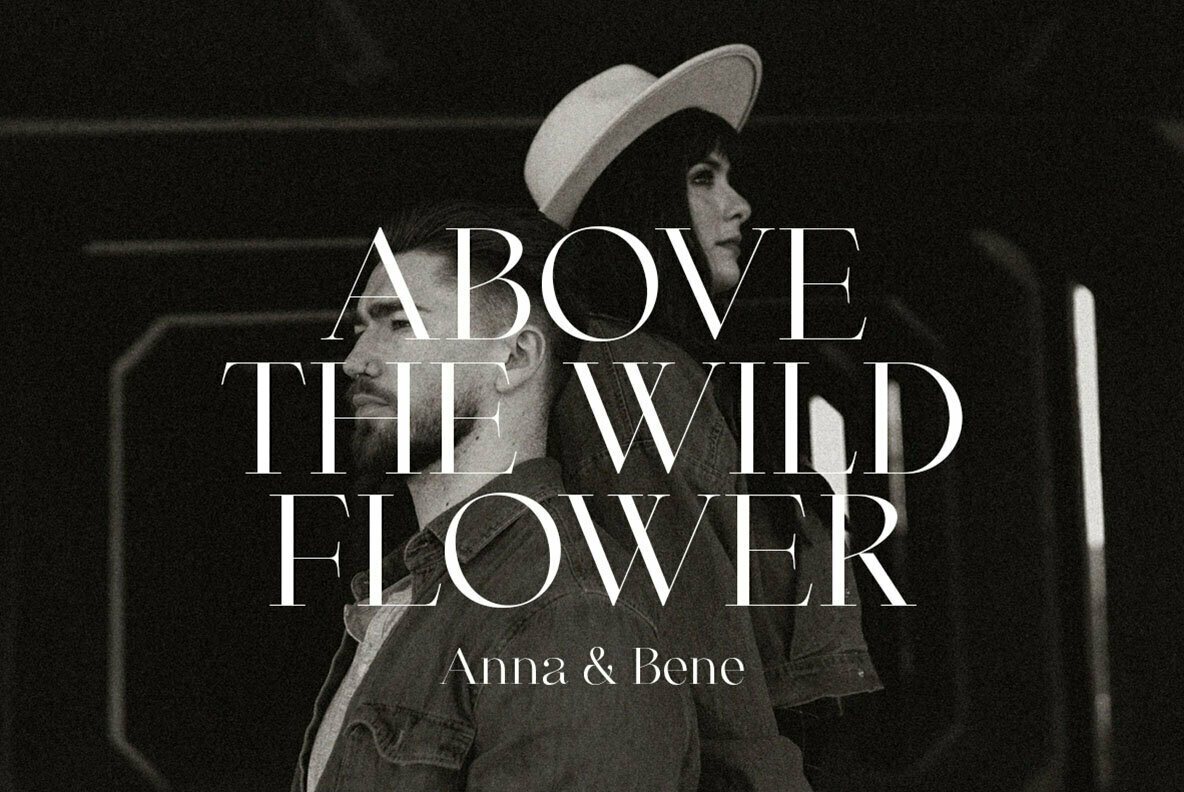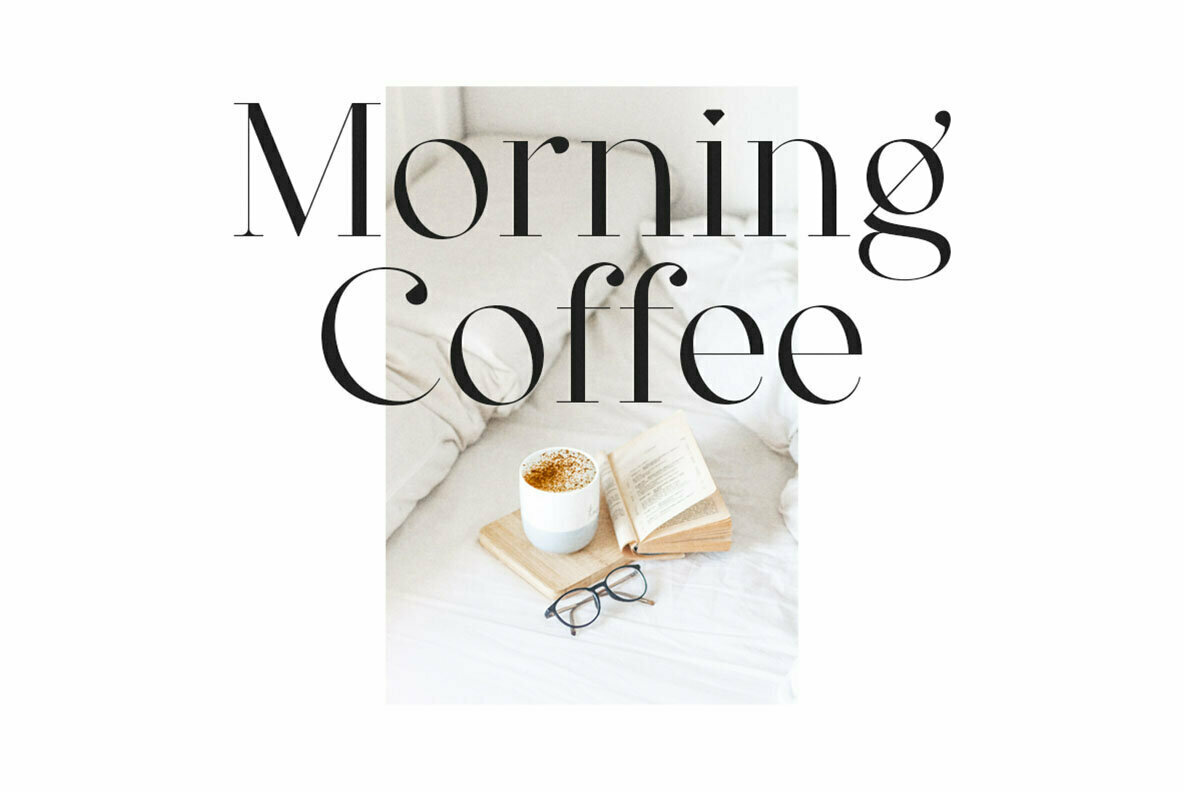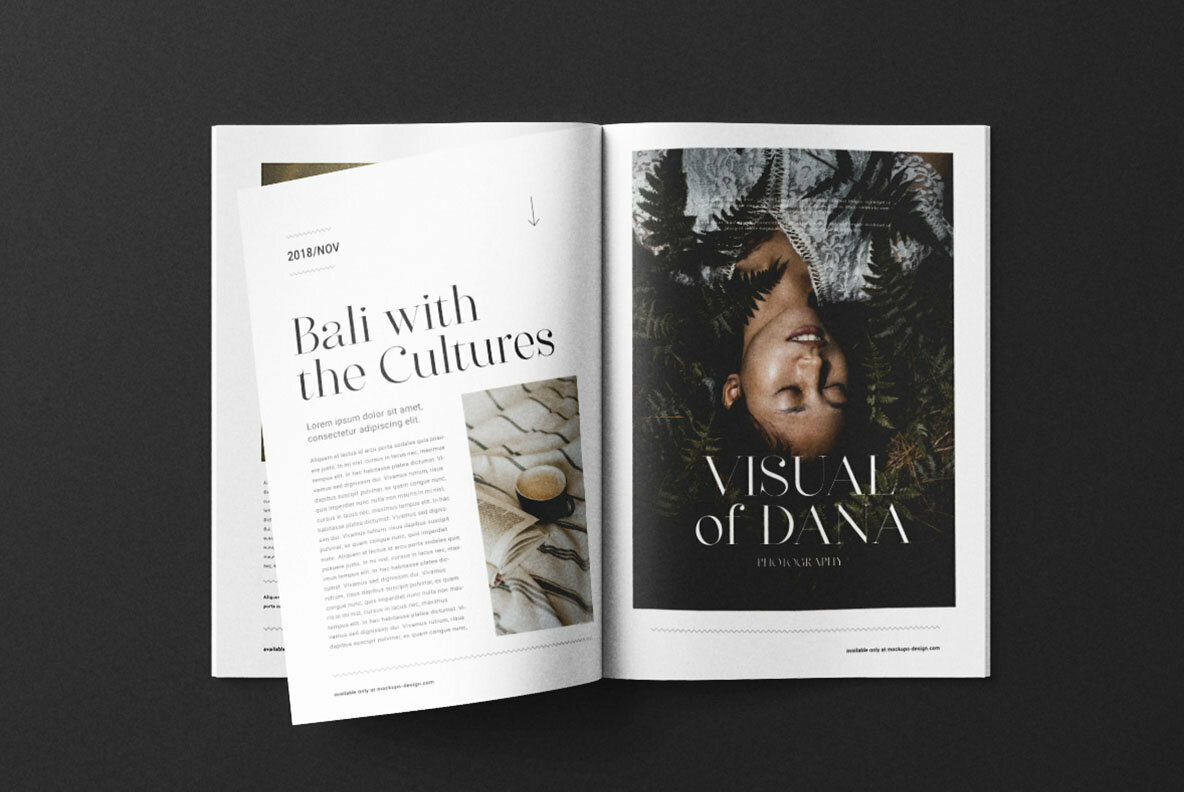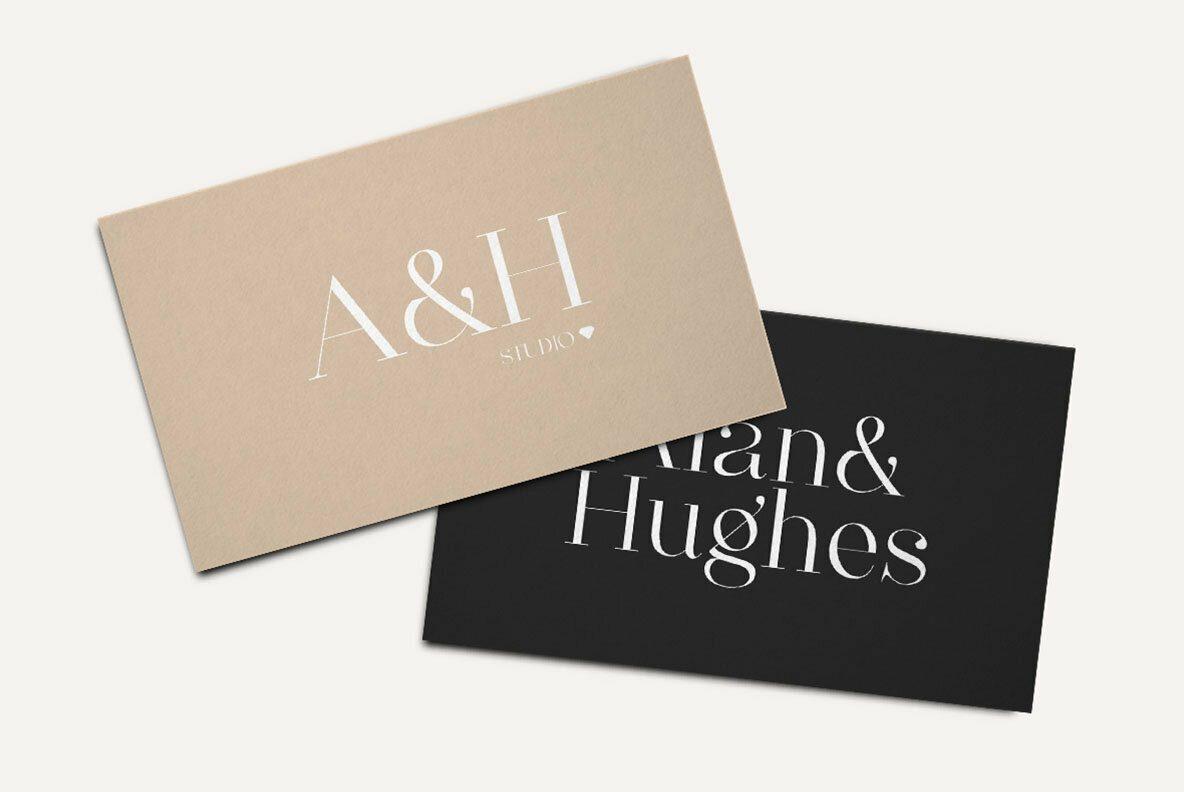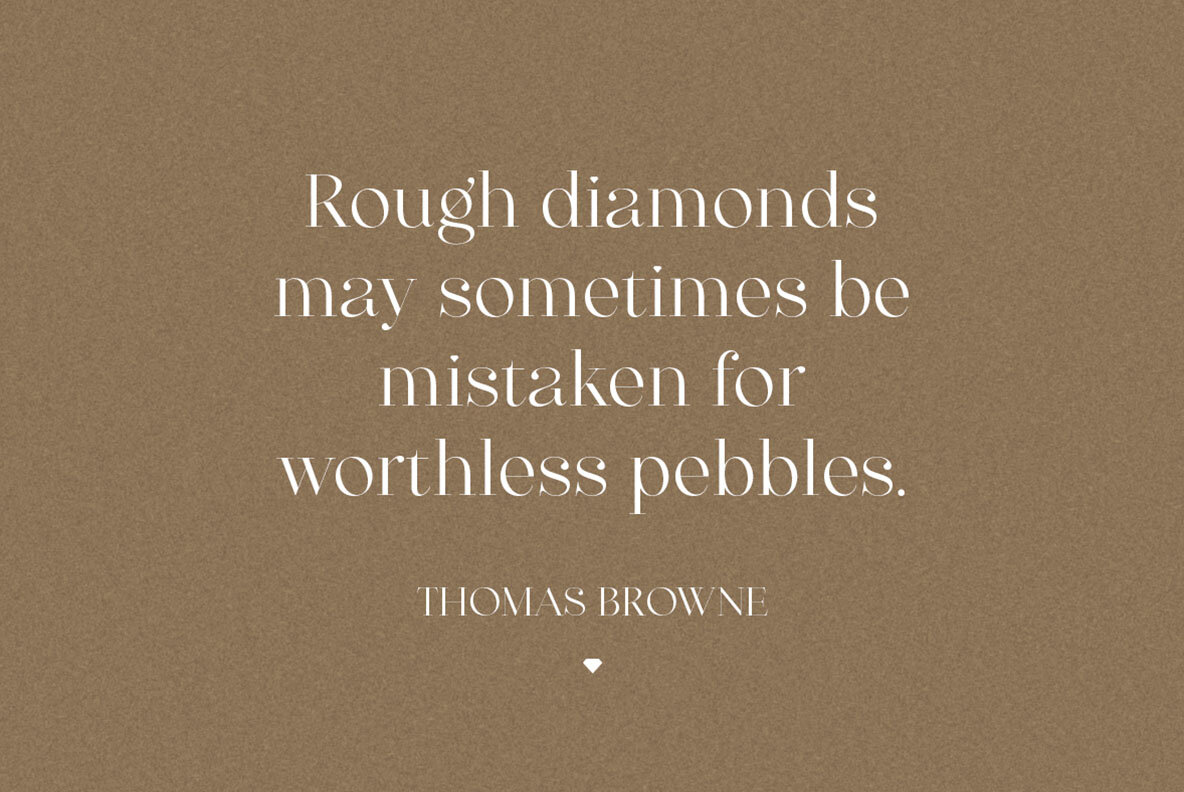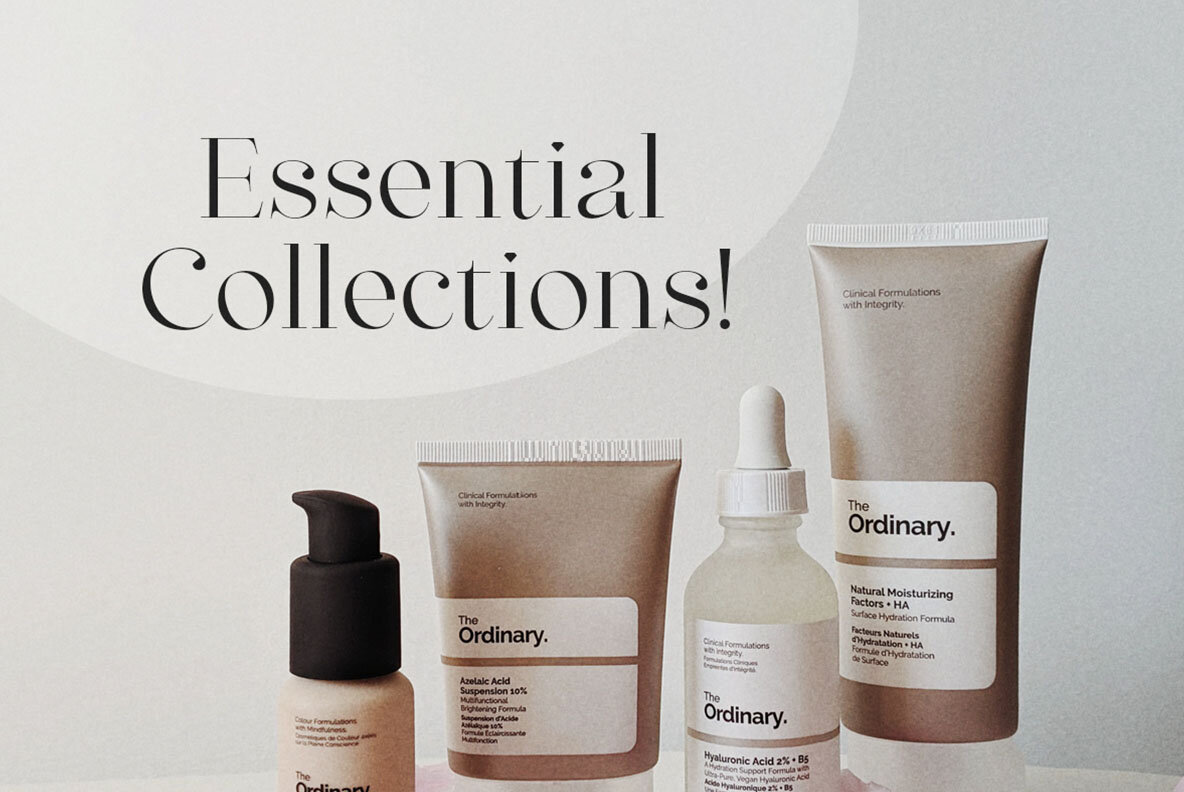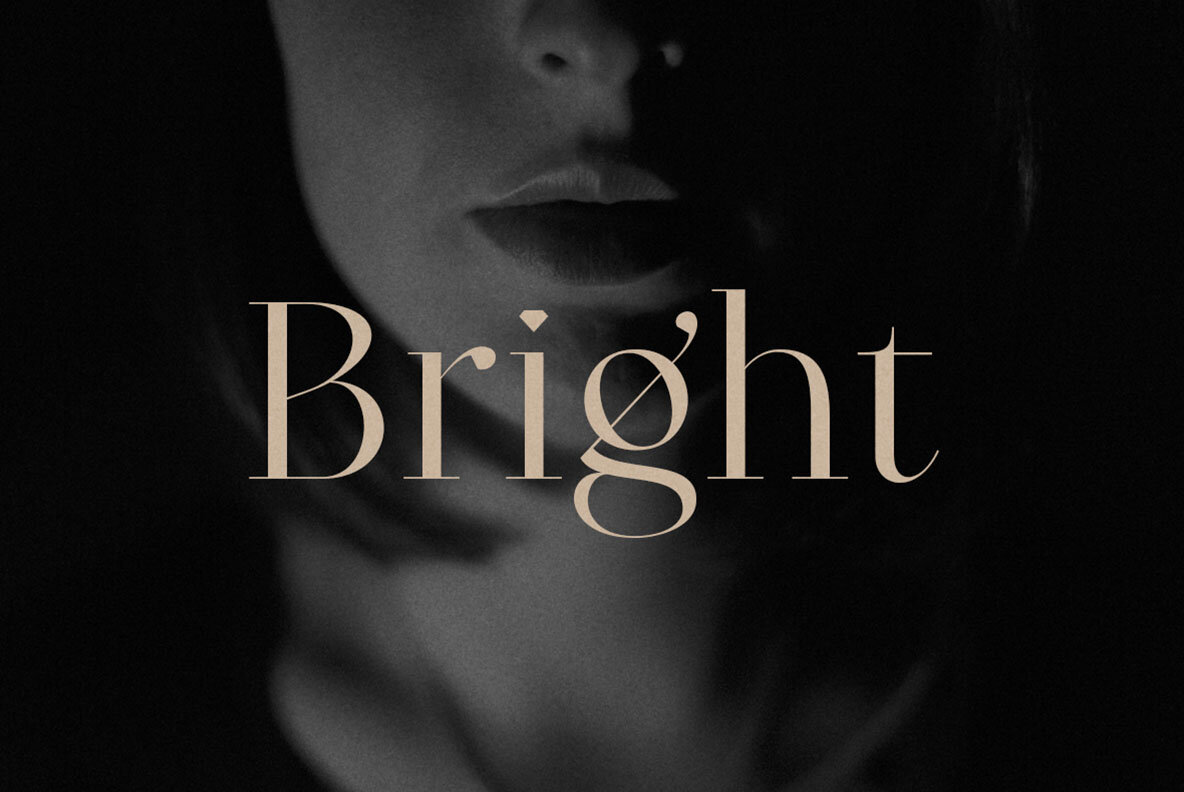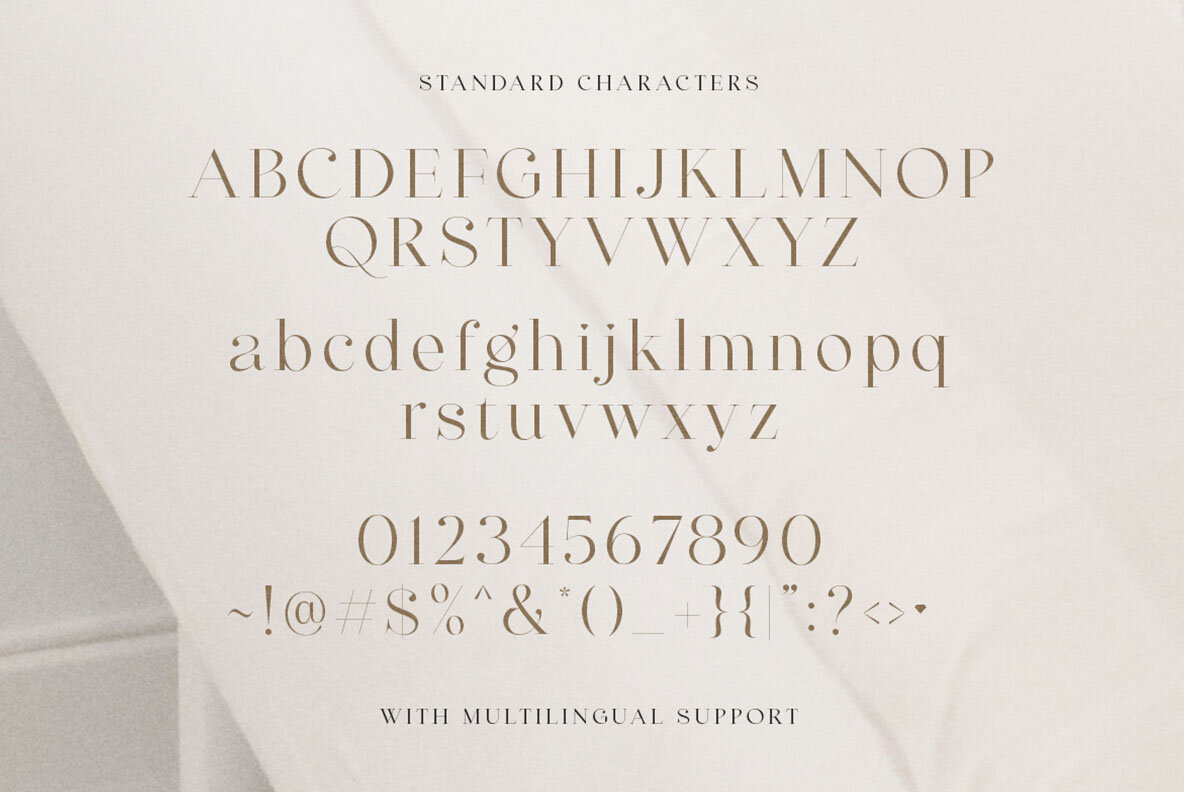
Diamond Bridge Font
Diamond Bridge Regular
Diamond Bridge stands as a refined serif font, offering sophistication and intricate detailing perfect for elevating logos, presentations, and wedding invitations. Its elegant style ensures that any project adorned with Diamond Bridge gains a noticeable touch of class and distinction. Ideal for various applications, this font seamlessly enhances wedding invitations, branding initiatives, and other creative endeavors. The versatility of Diamond Bridge is further highlighted by its support for multiple languages and PUA encoding, making it accessible and user-friendly across diverse platforms.Diamond Bridge: An Elegant Serif for Timeless Designs